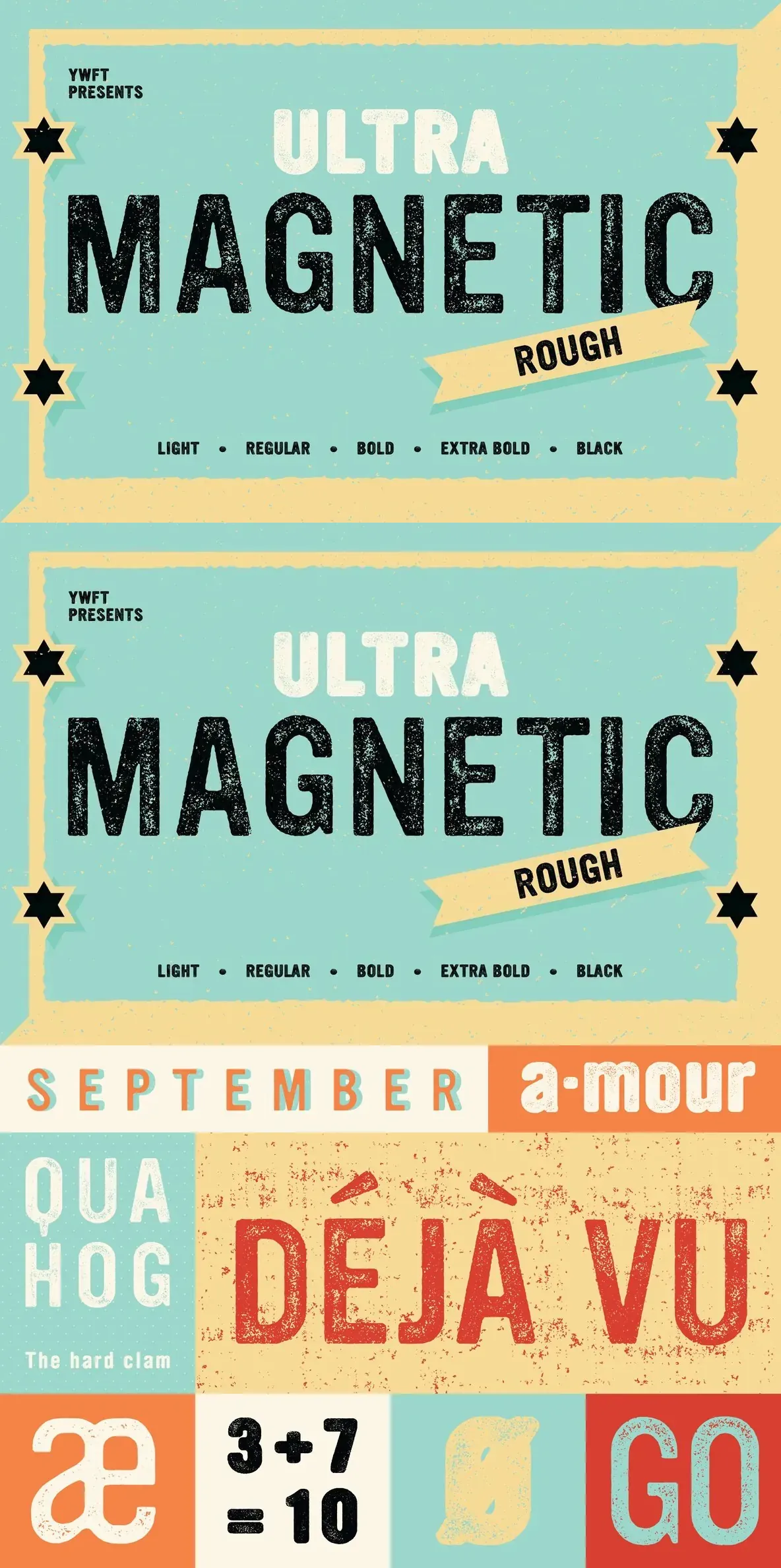
Ultramagnetic Rough: Soft Gothic Sans with Layered Distressing
Ultramagnetic Rough offers a distinctive blend of gothic energy and approachable curves, designed to capture attention in branding, editorial, or digital environments. The font’s character emerges from its varied distressing—applied in progressive stages across weights—creating dimensionality and a visually rugged presence. This layered texture achieves a balance: it brings grit without sacrificing the underlying welcoming quality that defined the original Ultramagnetic family. The result is a font well-suited for headlines, packaging, and design projects that require both attitude and subtlety.
Ultramagnetic Rough includes three stages of distressing and five weights, giving designers a spectrum of fifteen variations. This flexibility supports diverse applications, from contemporary identity systems to expressive display typographies. Each weight maintains consistent proportions and legibility while allowing for nuanced control over texture and tone.
Soft gothic shapes with enhanced edge texture
Three progression levels of distressing
Five distinct weights: Light, Regular, Bold, Extra Bold, Black
Fifteen total variations for versatility
Balanced for both print and digital contexts